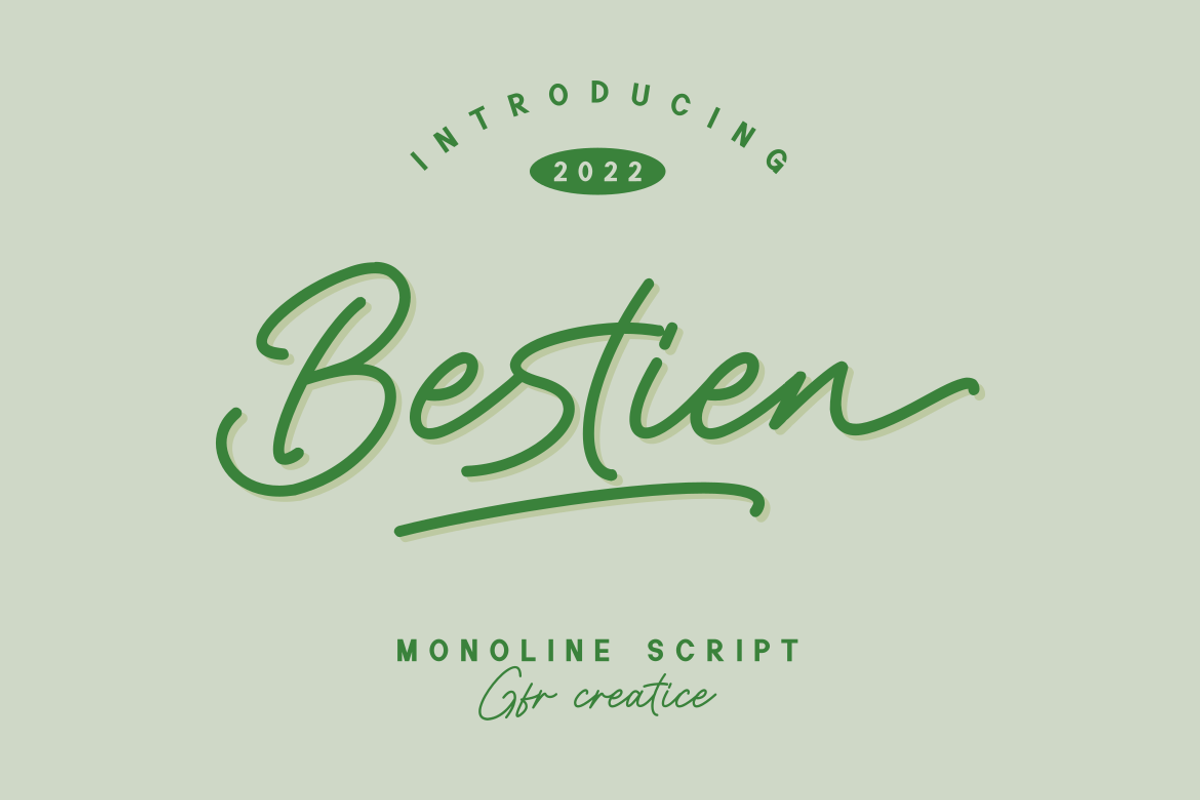
Bestien - Monoline Script Font Free Download is a smooth and stylish typeface featuring consistent stroke width and elegant curves. Perfect for logos, wedding invitations, signature-style branding, packaging, and minimalist designs, this monoline script exudes modern sophistication with a handcrafted touch.
Its clean flow and graceful lines make it easy to read while still adding a personal, designer feel. Whether you're working on social media graphics or boutique branding, Bestien adds a touch of class and casual charm to every project.